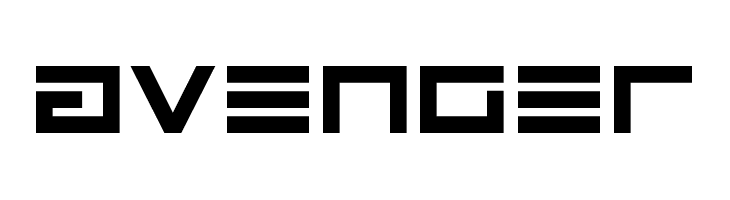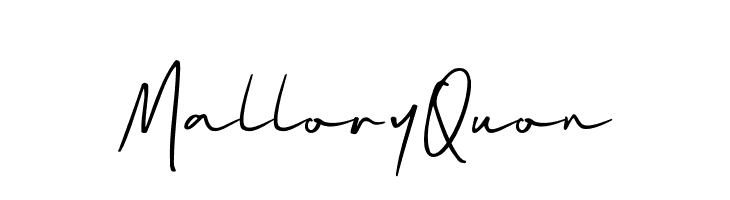
A decorative font with diverse heart shapes and playful designs.
An elegant, flowing script font with graceful curves and interconnected letters.
A playful, handwritten font with smooth, flowing lines and a casual style.
Expressive handwritten script with energetic, slanted strokes.
A bold, three-dimensional block font with textured fill and shadow effects.
A bold, geometric font with a futuristic, robotic style.
A geometric, minimalist font with thin, linear strokes and angular forms.
A dotted, italic font with a digital, futuristic style.
A bold, geometric outline font with a modern and playful style.
A modern, geometric font with an italic slant and hexagonal pattern.